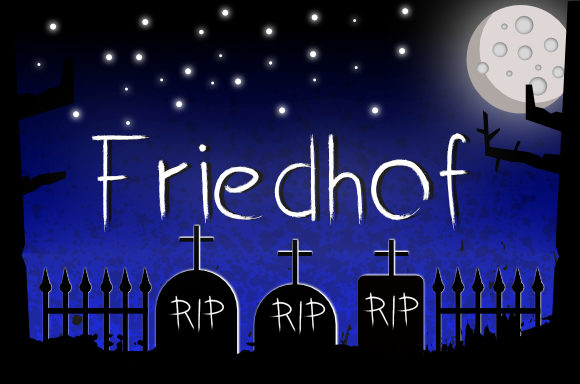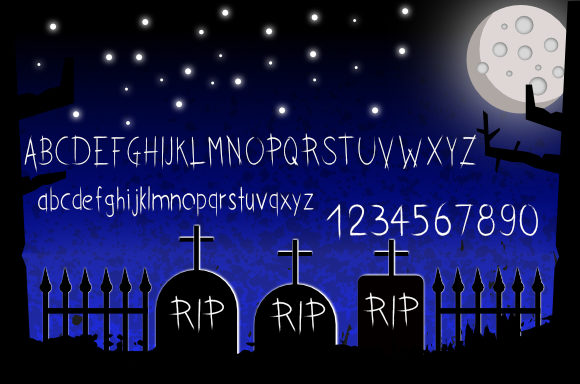
Friedhof Font
About Friedhof Font
Not only for Halloween lovers: Friedhof is a spooky and unique handwritten font that will put a weird and scary twist on any design idea.